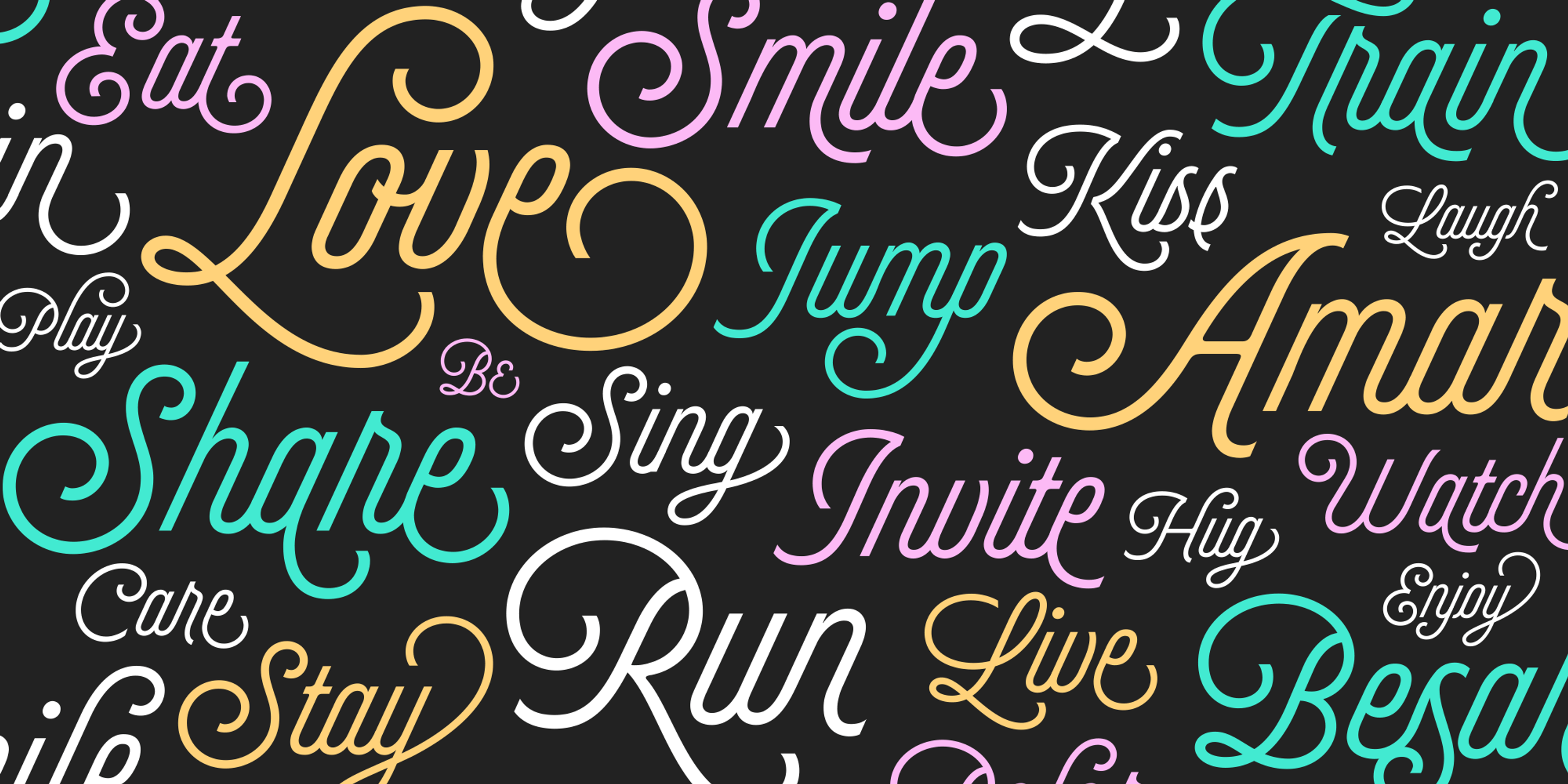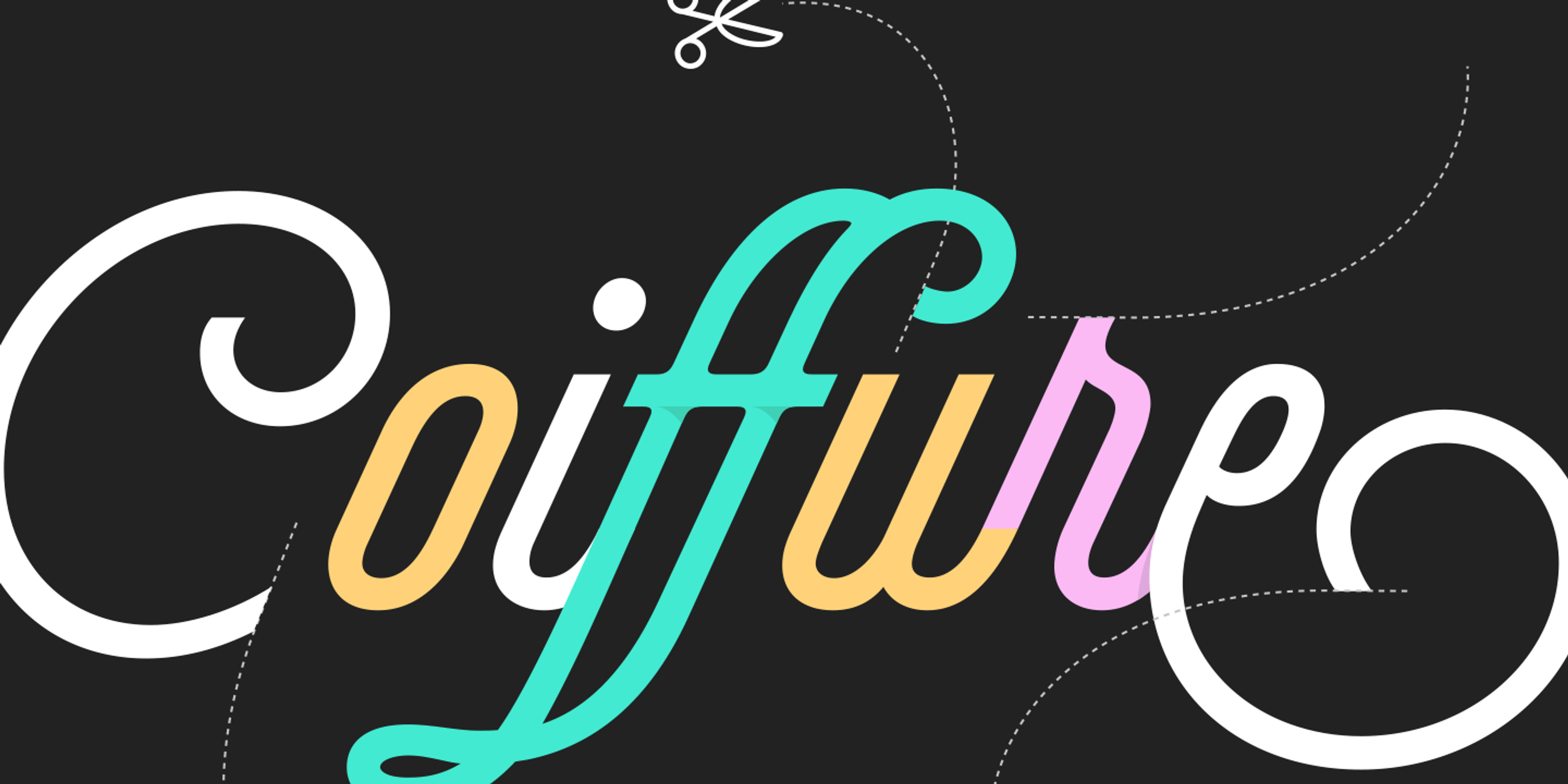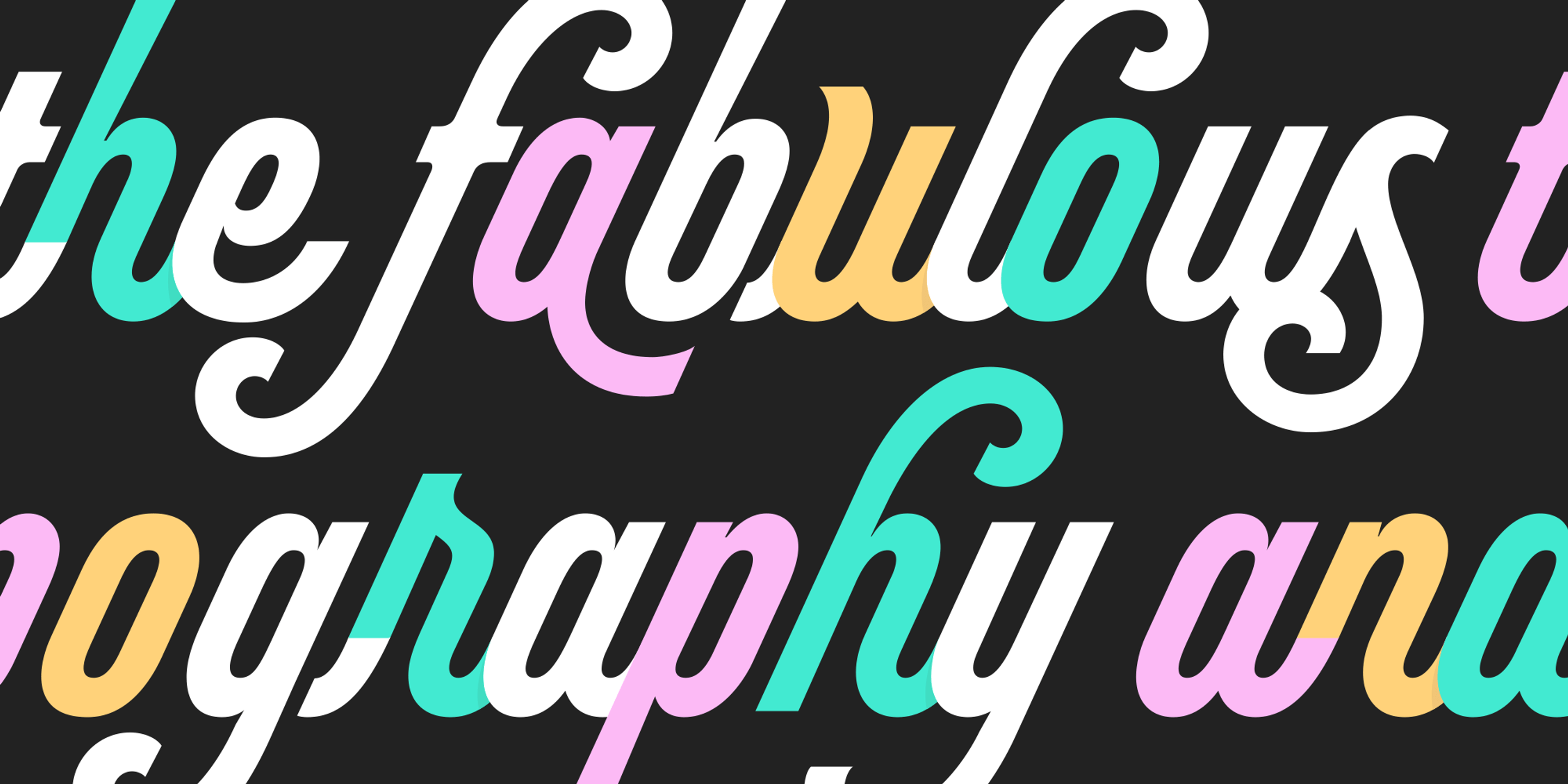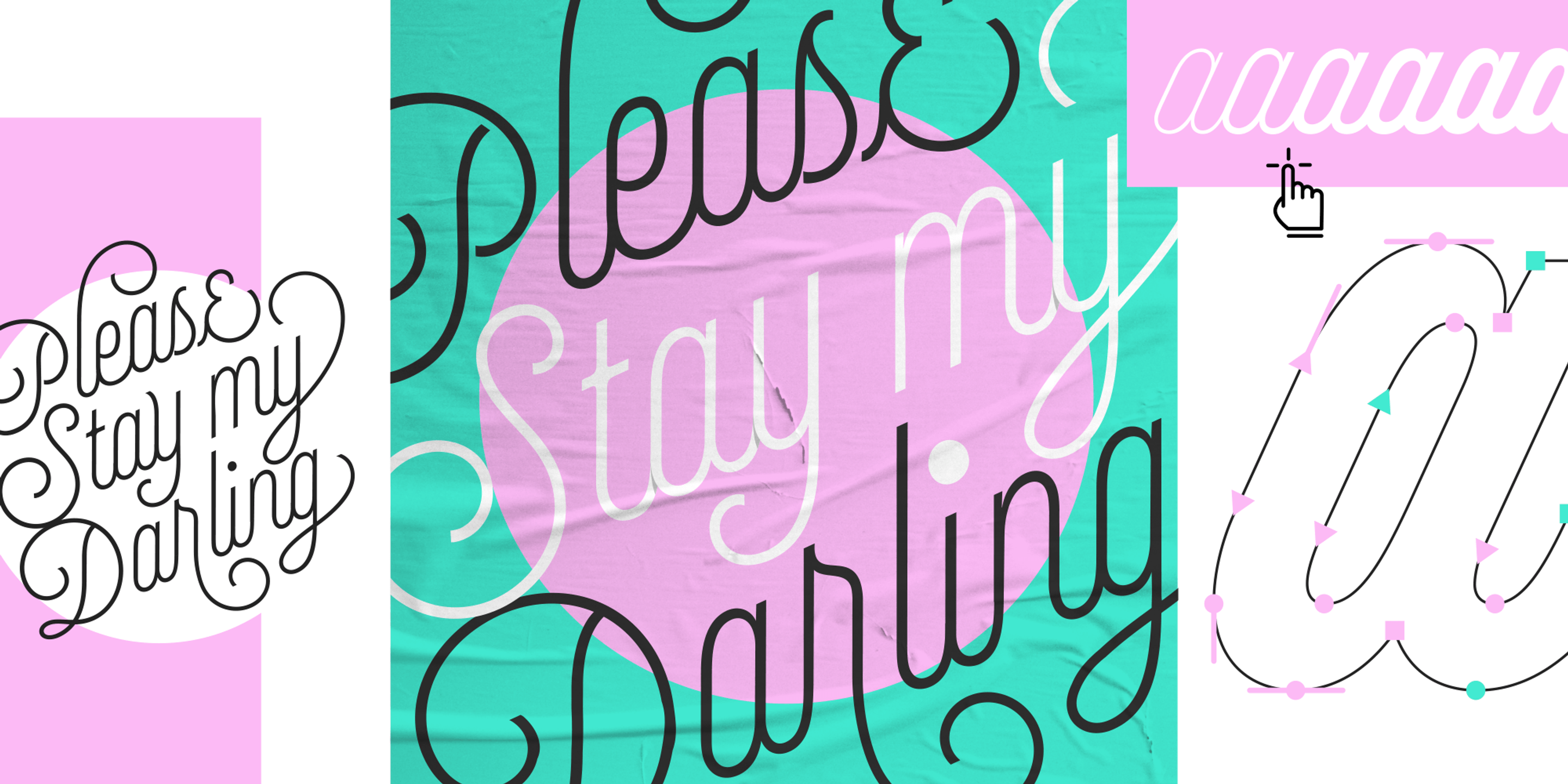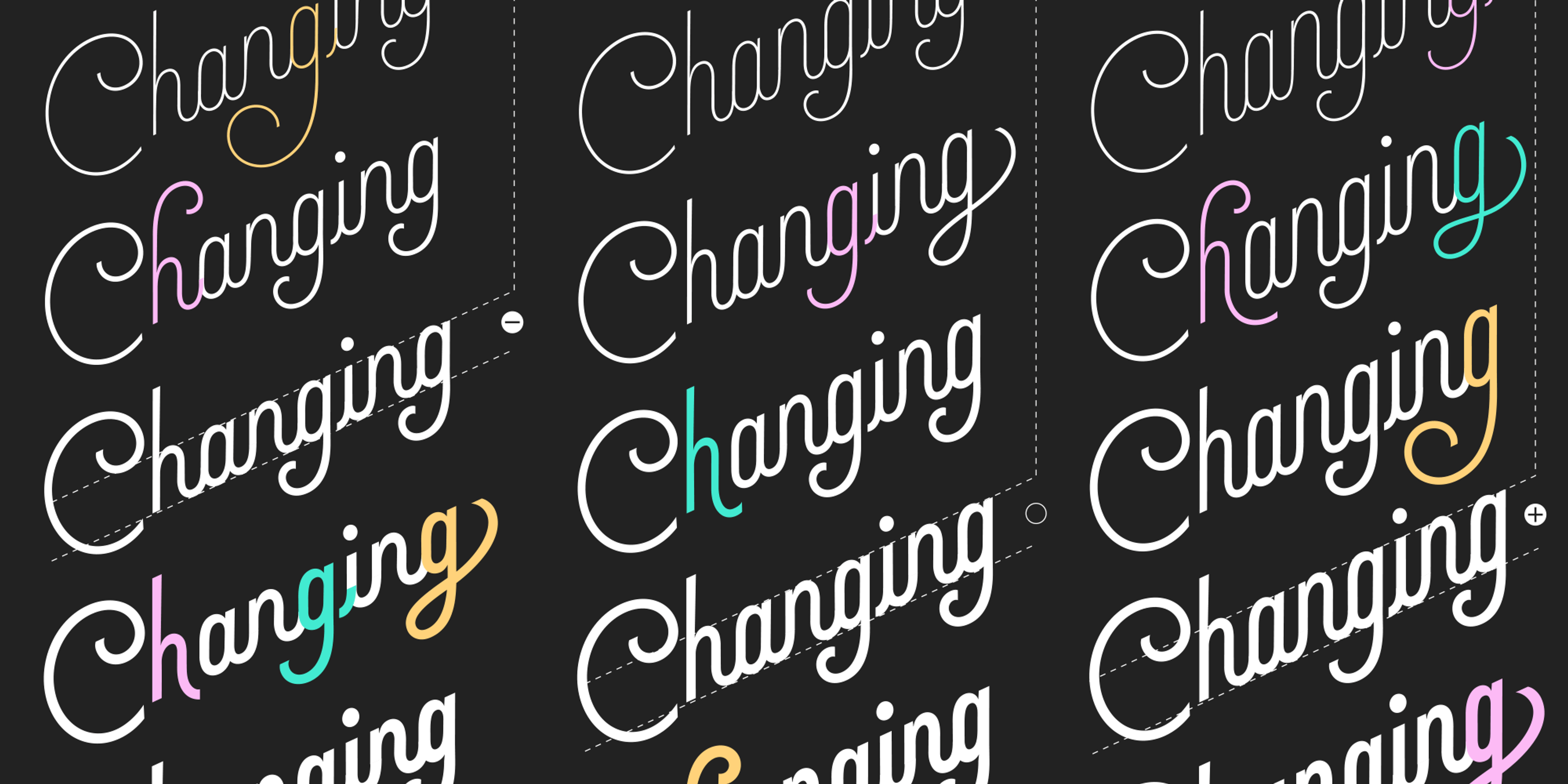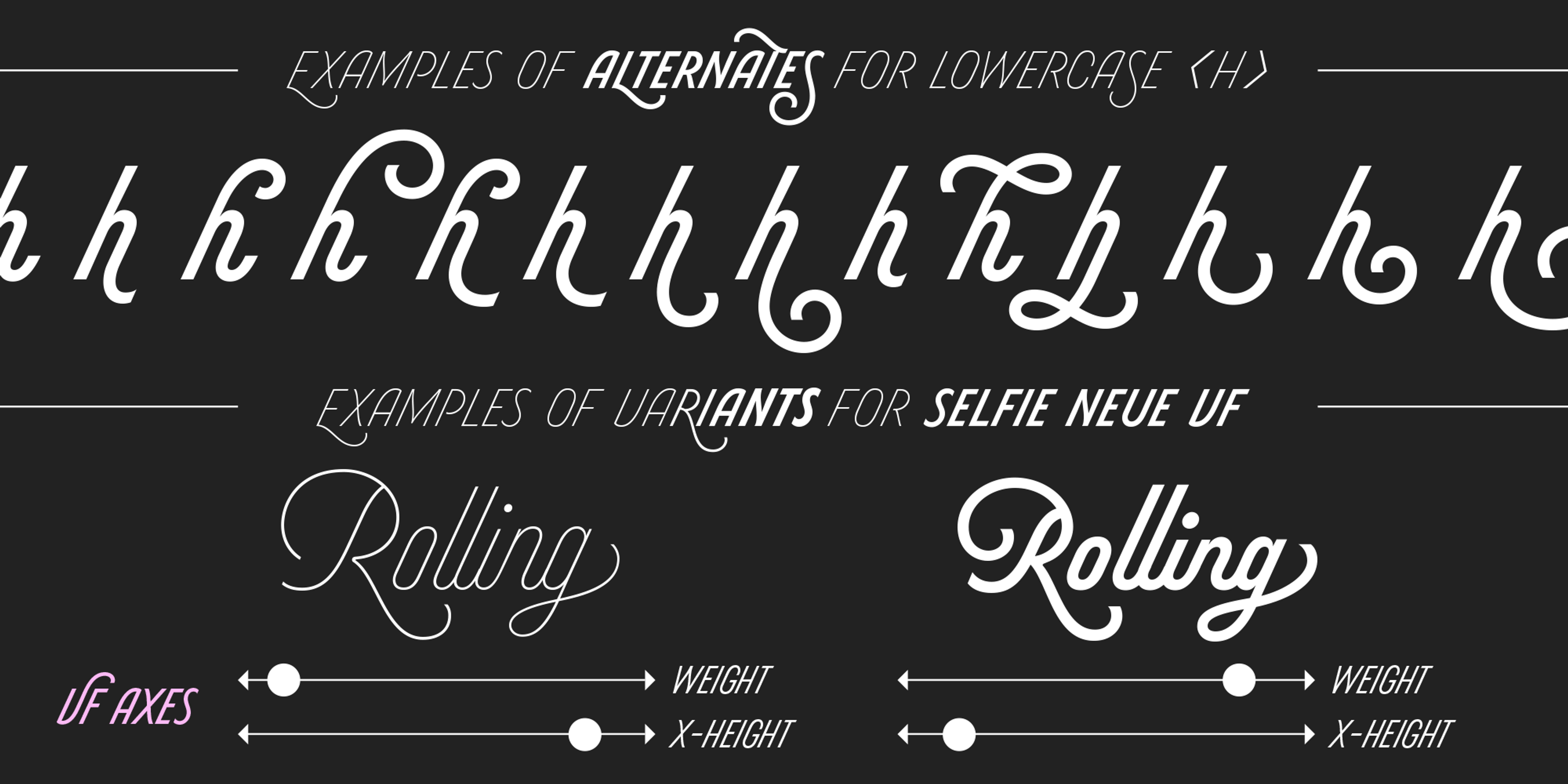
Selfie Neue Sharp font by Sproviero Type — the word “Changing” repeated in a monoline script, with some letters in pink, yellow, or teal, and some lines showing ascender, descender, and x-height.
Selfie Neue Sharp font by Sproviero Type — the words “Please Stay my Darling” in a connected script, with a detail of the letter ‘a’ showing its vector points and handles
Selfie Neue Sharp font by Sproviero Type — the word “EXAMPLES OF ALTERNATES FOR LOWERCASE <H>” above a row of 12 italic monoline script letter h’s, and below that “EXAMPLES OF VARIANTS FOR SELFIE NEUE UF” above two versions of the word “Rolling” in the same script, with two horizontal sliders labeled “WEIGHT” and “X-HEIGHT” below each.
Selfie Neue Sharp font by Sproviero Type — the connected script words “Danke! Leute” in black with a teal shadow over a teal circle, and to the right, several lines of upright sans-serif text, some black and some teal, including “BEST SE” and “SMART”
Selfie Neue Sharp font by Sproviero Type — the words “the fabulous typography and” in a multi-colored connected script, with some letters appearing to overlap
Selfie Neue Sharp font by Sproviero Type — the word “Coiffure” in a connected script, with a white C, i, and e, a teal o and f, a yellow u, and a pink r, with a pair of scissors and dotted lines above.
Selfie Neue Sharp font by Sproviero Type — a repeating pattern of upright and italic connected script words in white, pink, yellow, and teal, including “Love”, “Share”, “Smile”, “Jump”, “Kiss”, “Amar”, “Sing”, “Invite”, “Run”, and “Live”
Selfie Neue Sharp Variable
Selfie Neue Sharp Thin
Selfie Neue Sharp Extra Light
Selfie Neue Sharp Light
Selfie Neue Sharp Abstract
Selfie Neue Sharp Regular
Selfie Neue Sharp Bold
Selfie Neue Sharp Black
Selfie Neue Sharp Short Thin
Selfie Neue Sharp Short Extra Light
Selfie Neue Sharp Short Light
Selfie Neue Sharp Short Regular
Selfie Neue Sharp Short Bold
Selfie Neue Sharp Short Black
Selfie Neue Sharp Tall Thin
Selfie Neue Sharp Tall Extra Light
Selfie Neue Sharp Tall Light
Selfie Neue Sharp Tall Regular
Selfie Neue Sharp Tall Bold
Selfie Neue Sharp Tall Black
Selfie Neue Sharp Caps Variable
Selfie Neue Sharp Caps Thin
Selfie Neue Sharp Caps Extra Light
Selfie Neue Sharp Caps Light
Selfie Neue Sharp Caps Regular
Selfie Neue Sharp Caps Bold
Selfie Neue Sharp Caps Black
Selfie Neue Sharp Caps Short Thin
Selfie Neue Sharp Caps Short Extra Light
Selfie Neue Sharp Caps Short Light
Selfie Neue Sharp Caps Short Regular
Selfie Neue Sharp Caps Short Bold
Selfie Neue Sharp Caps Short Black
Selfie Neue Sharp Caps Tall Thin
Selfie Neue Sharp Caps Tall Extra Light
Selfie Neue Sharp Caps Tall Light
Selfie Neue Sharp Caps Tall Regular
Selfie Neue Sharp Caps Tall Bold
Selfie Neue Sharp Caps Tall Black